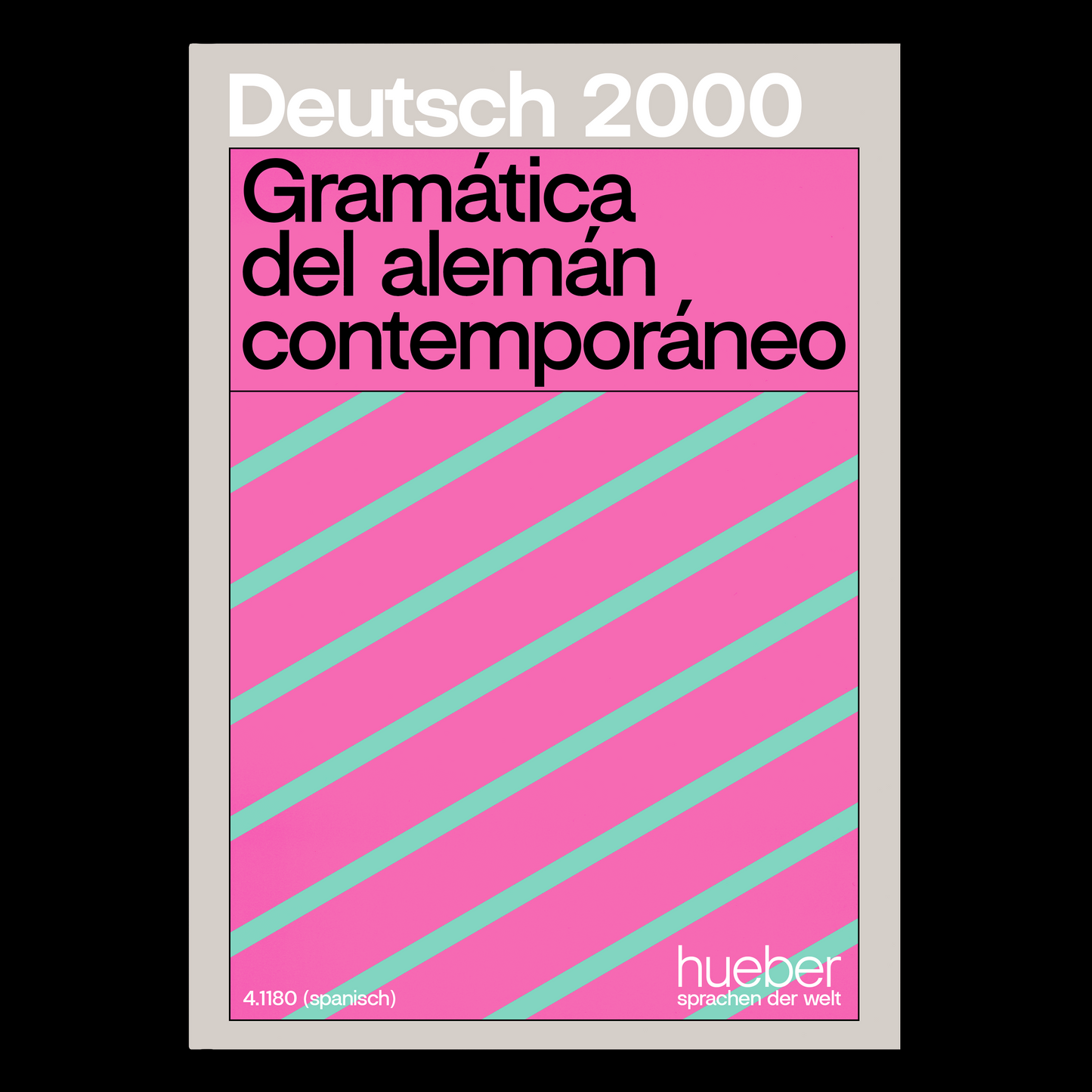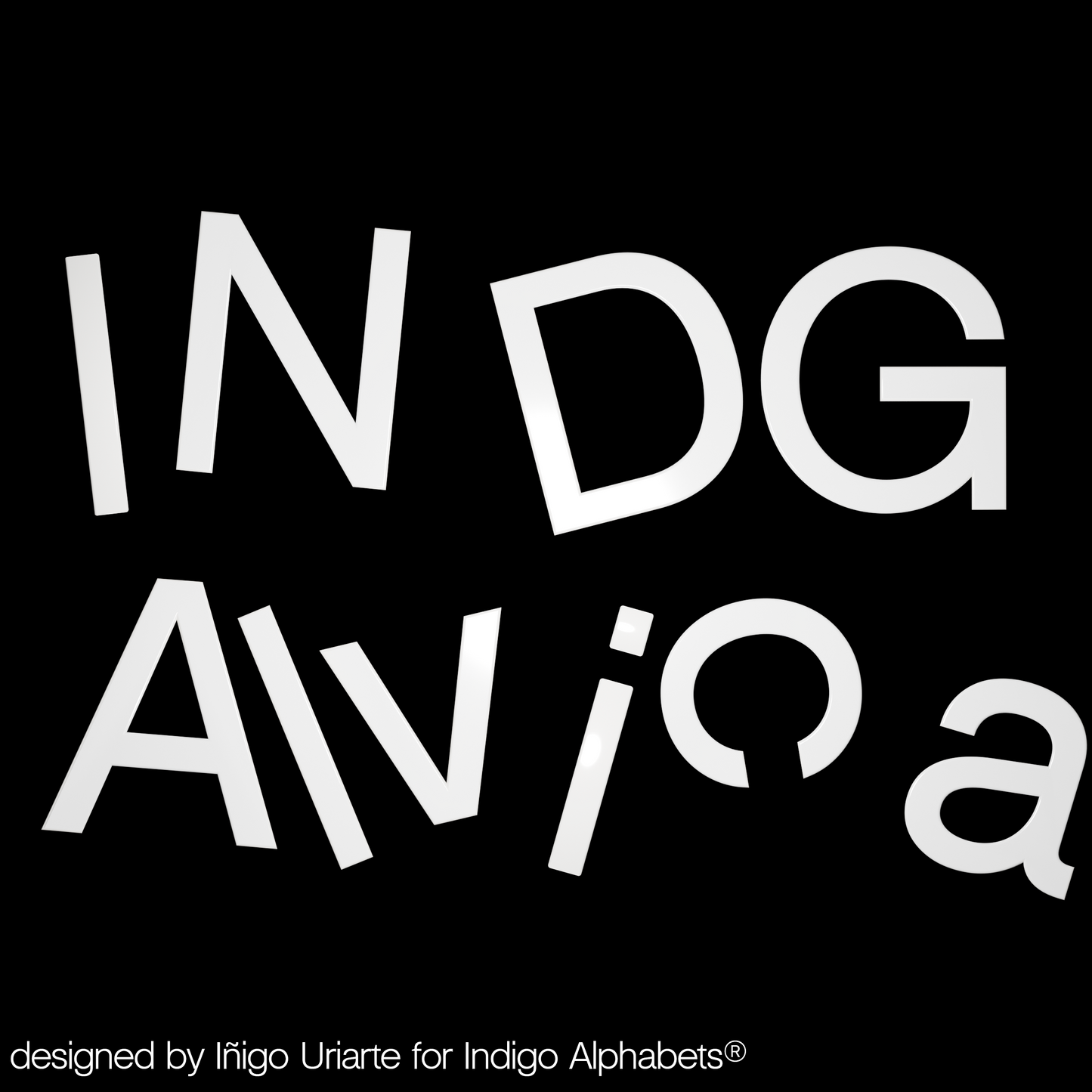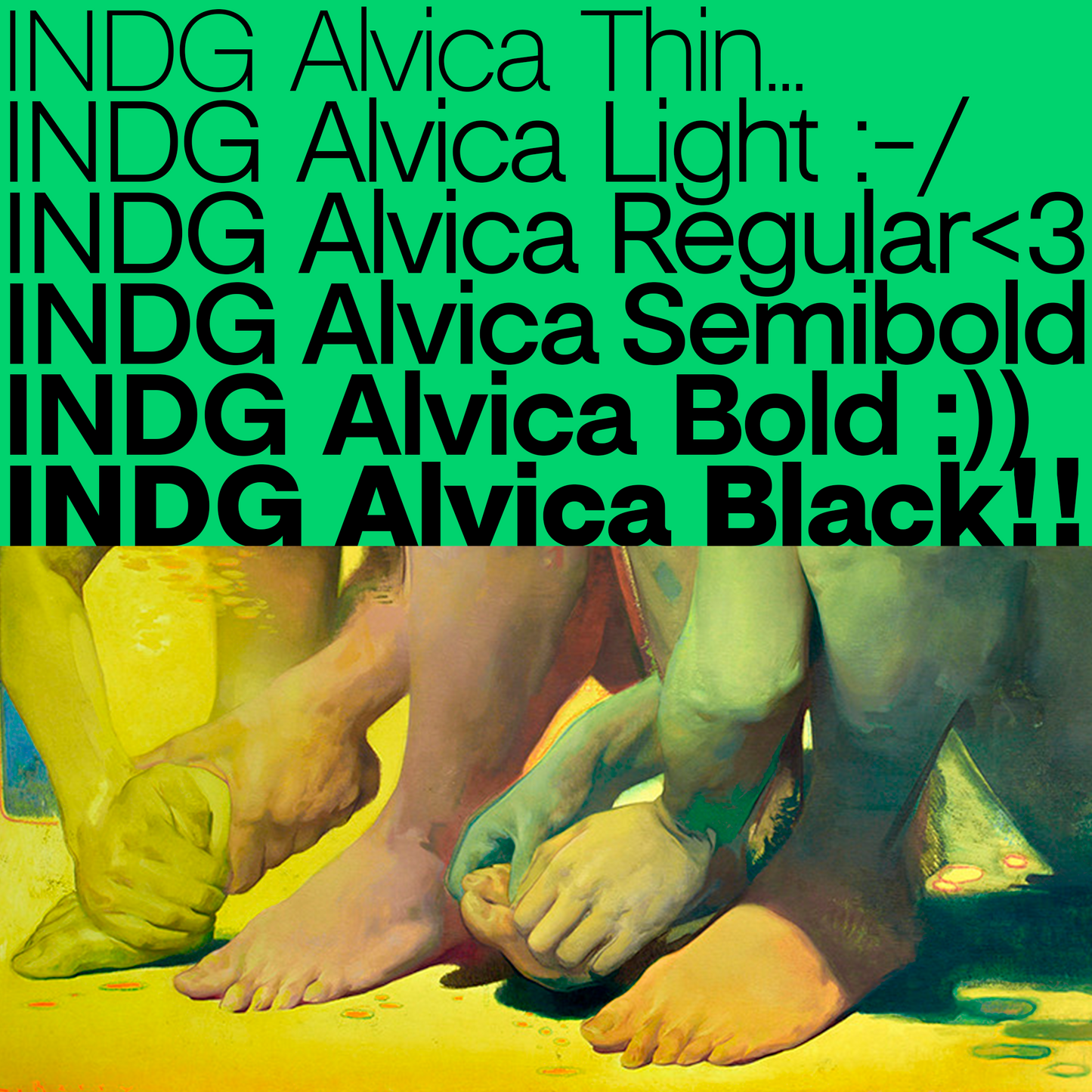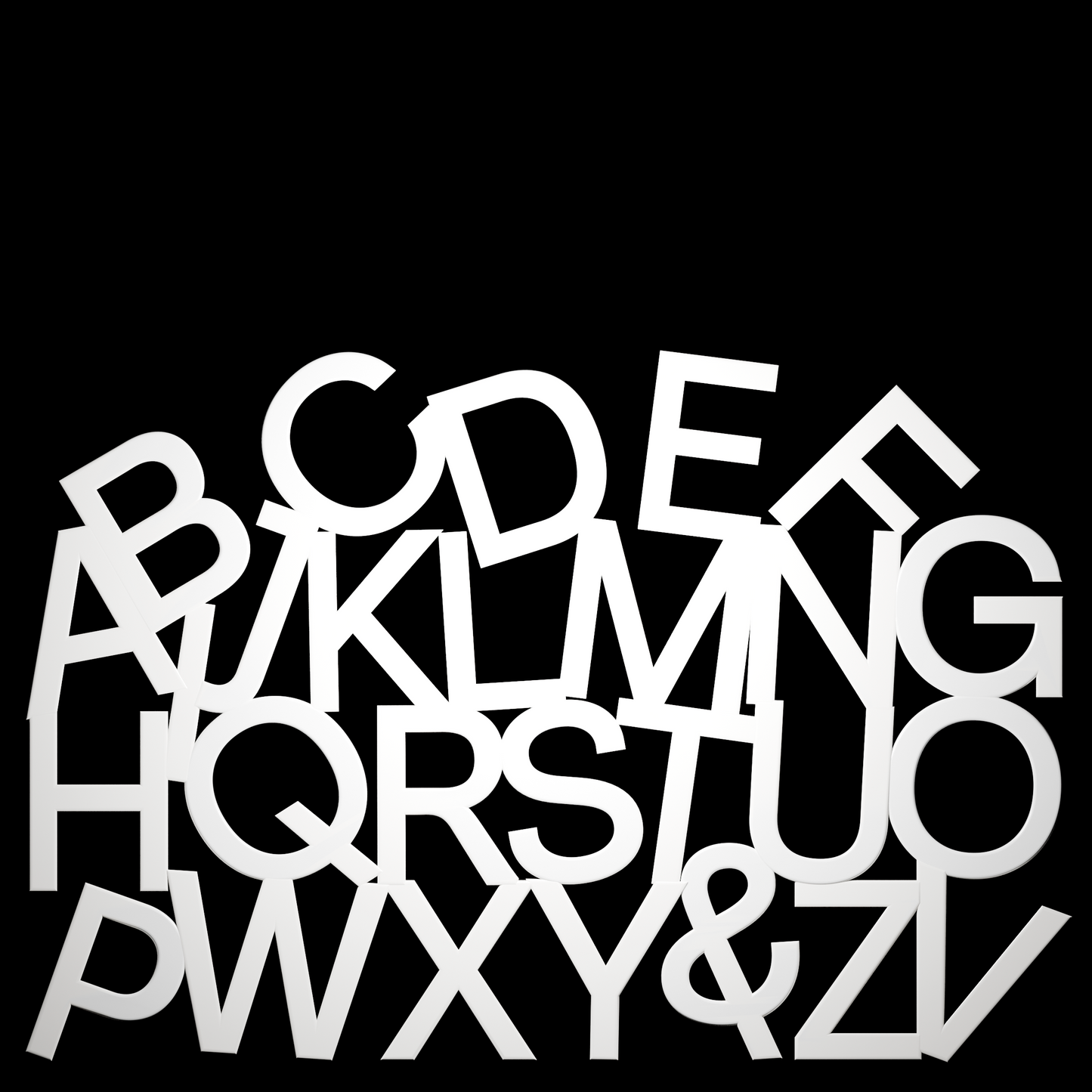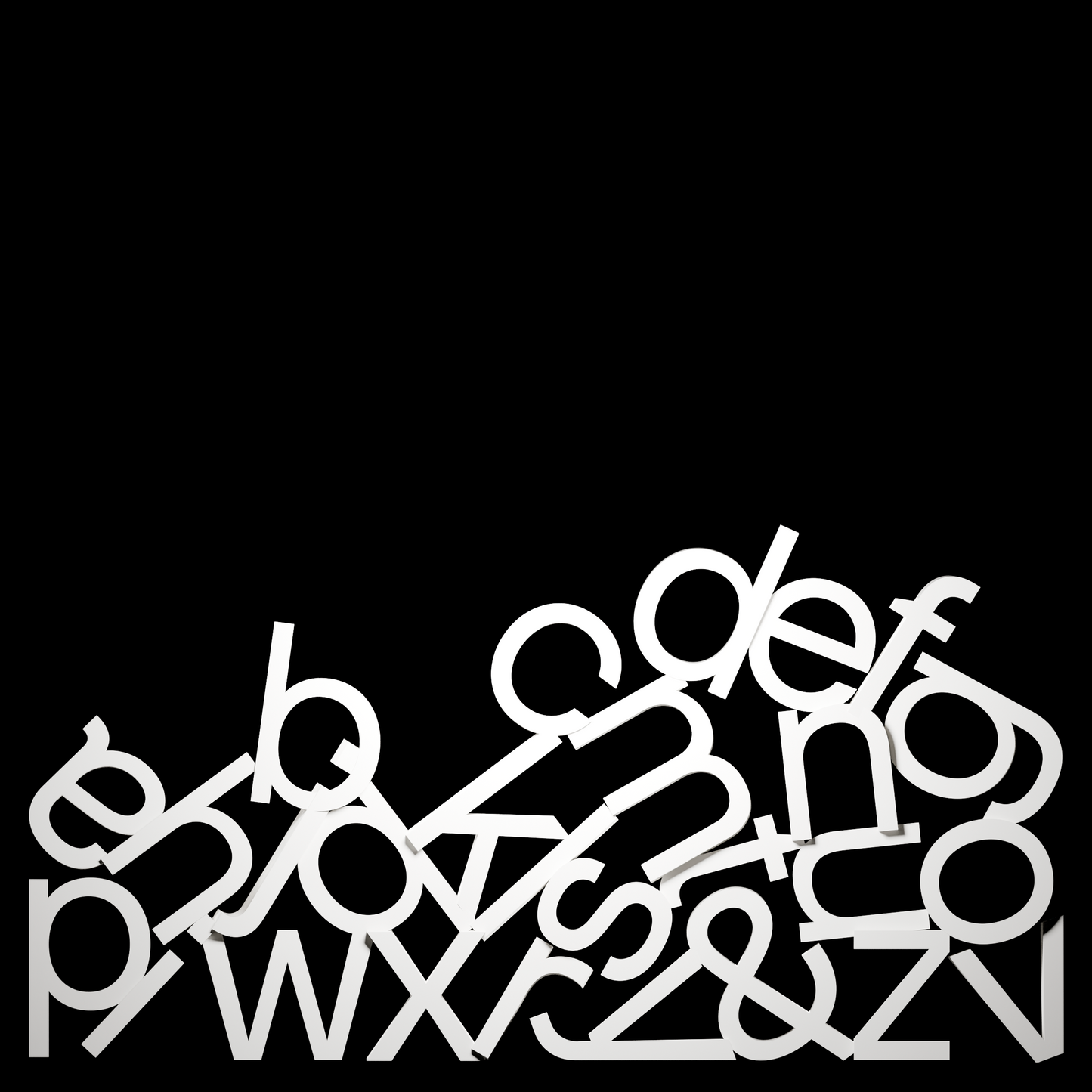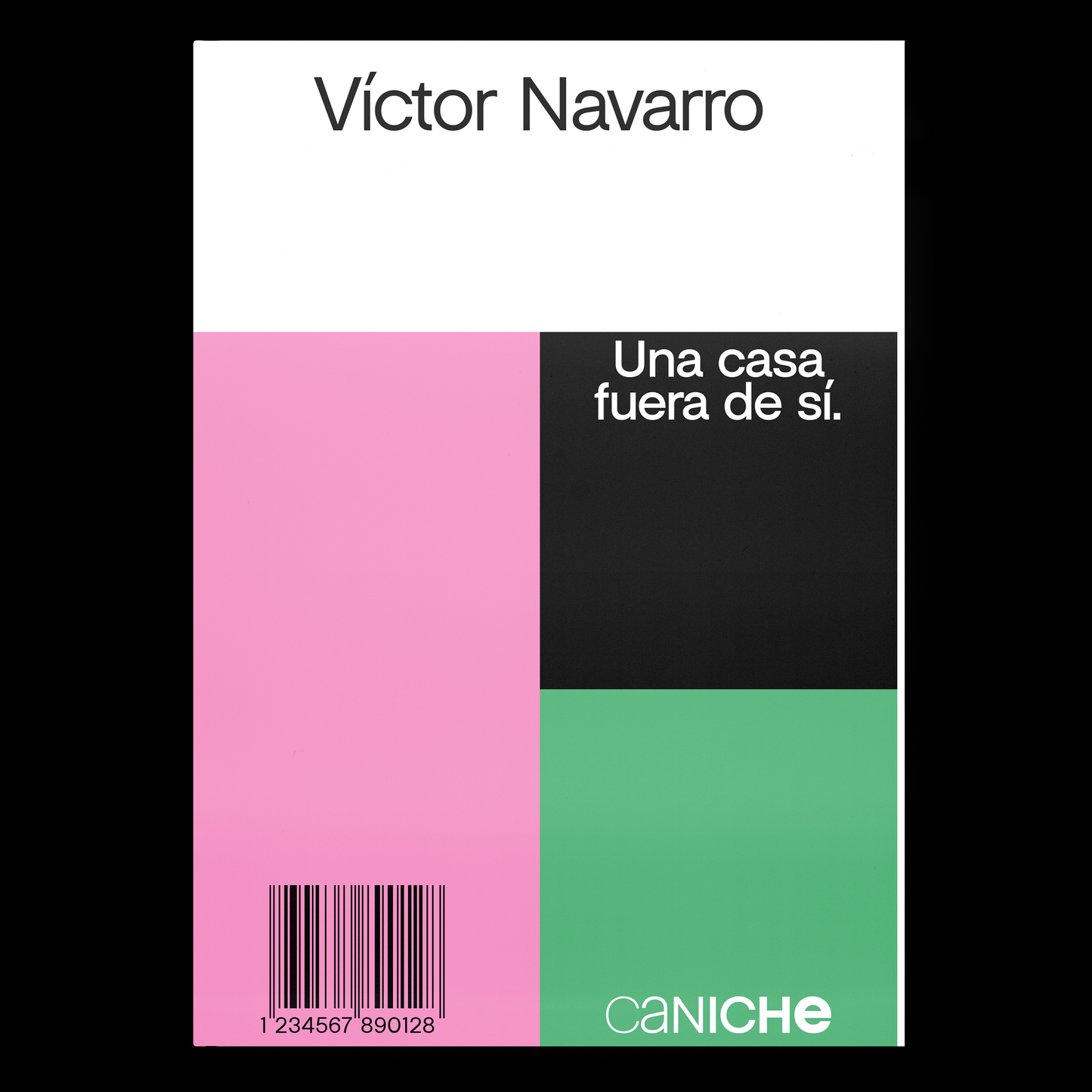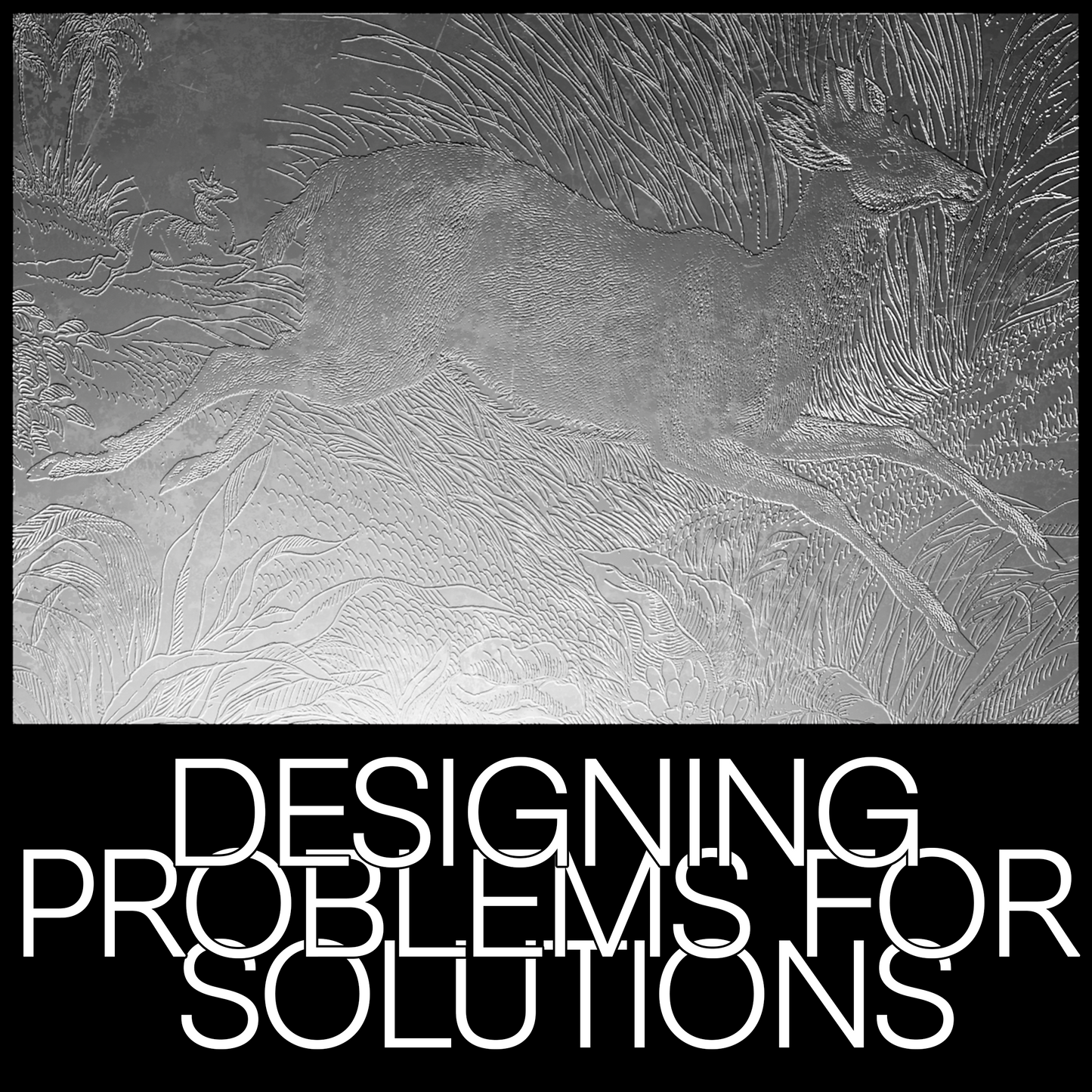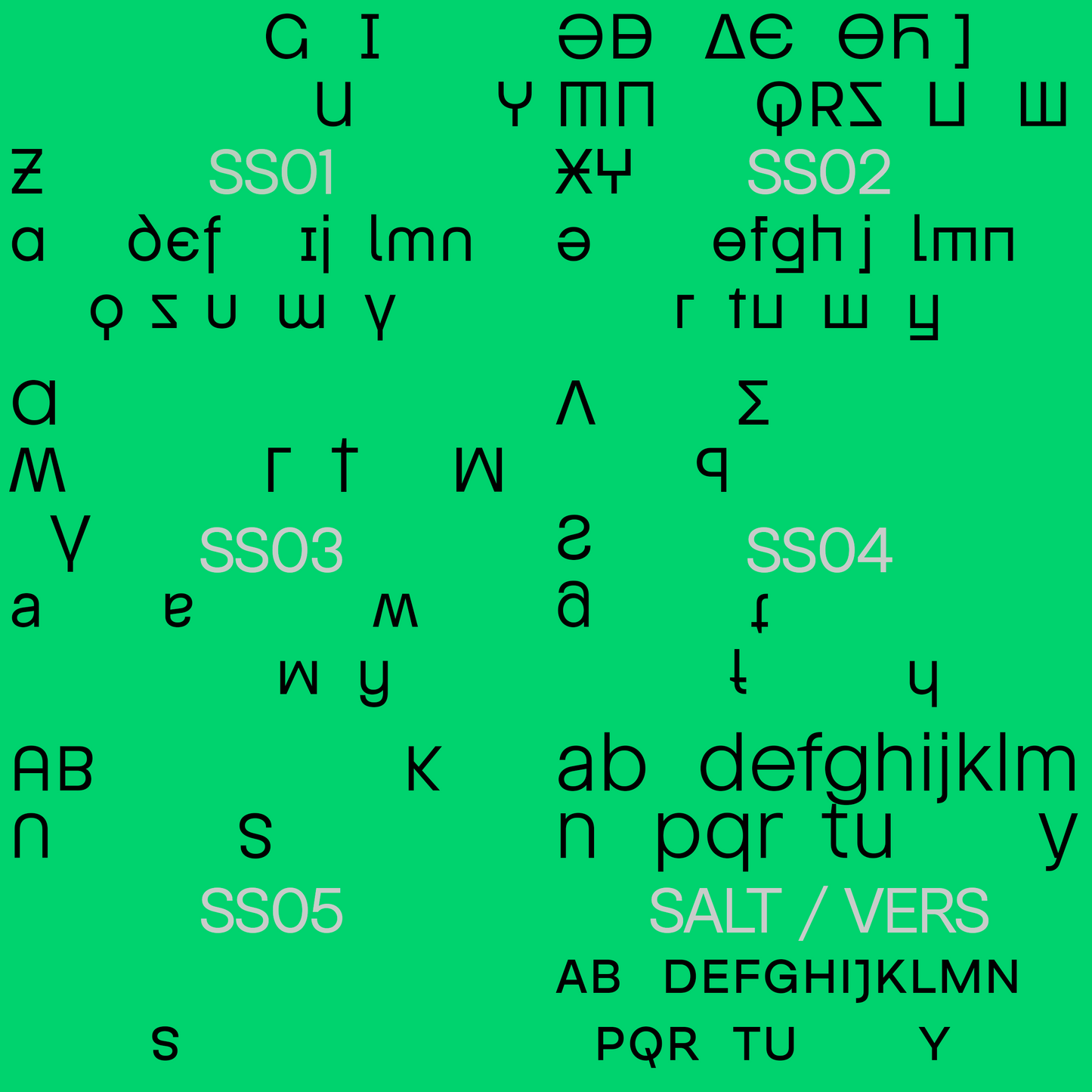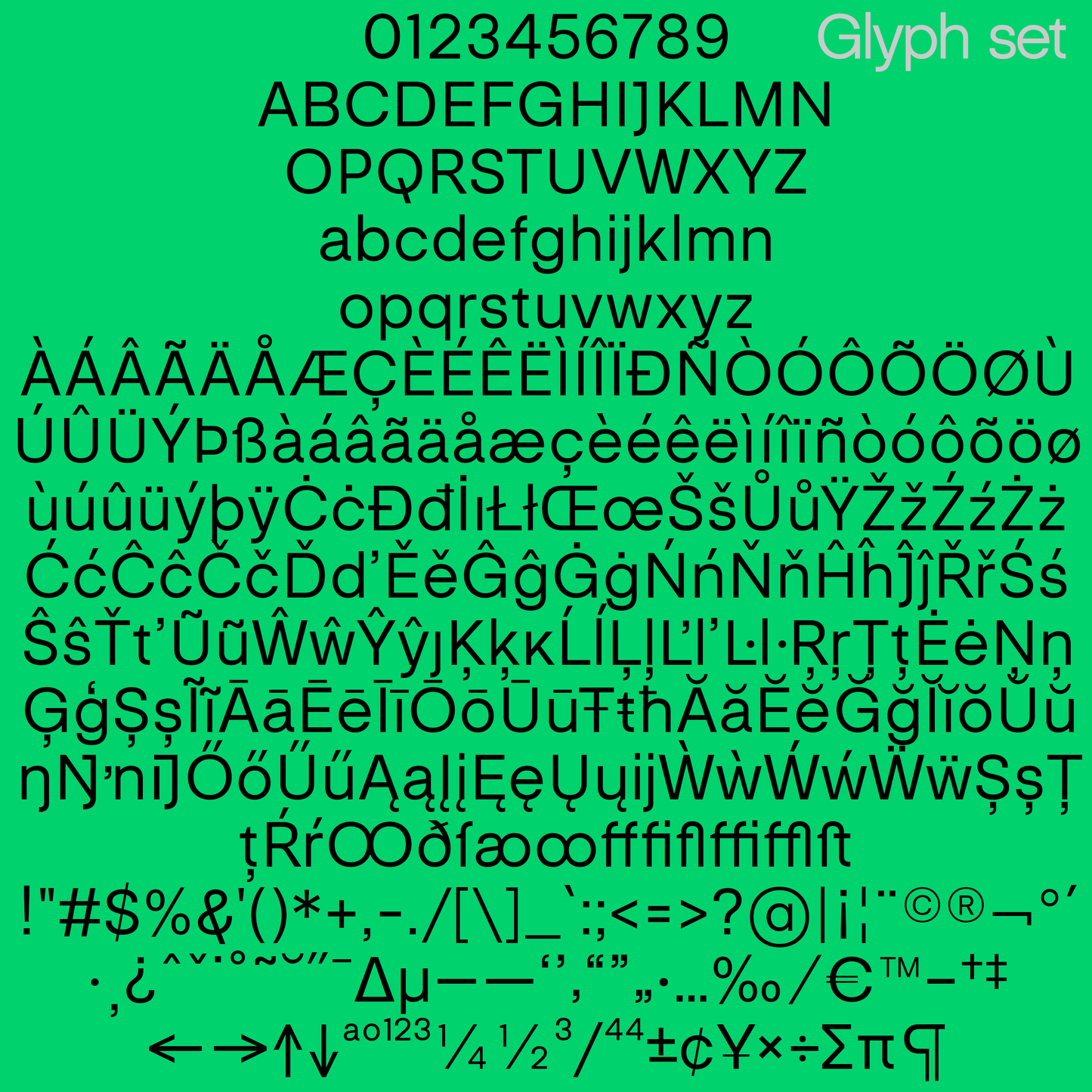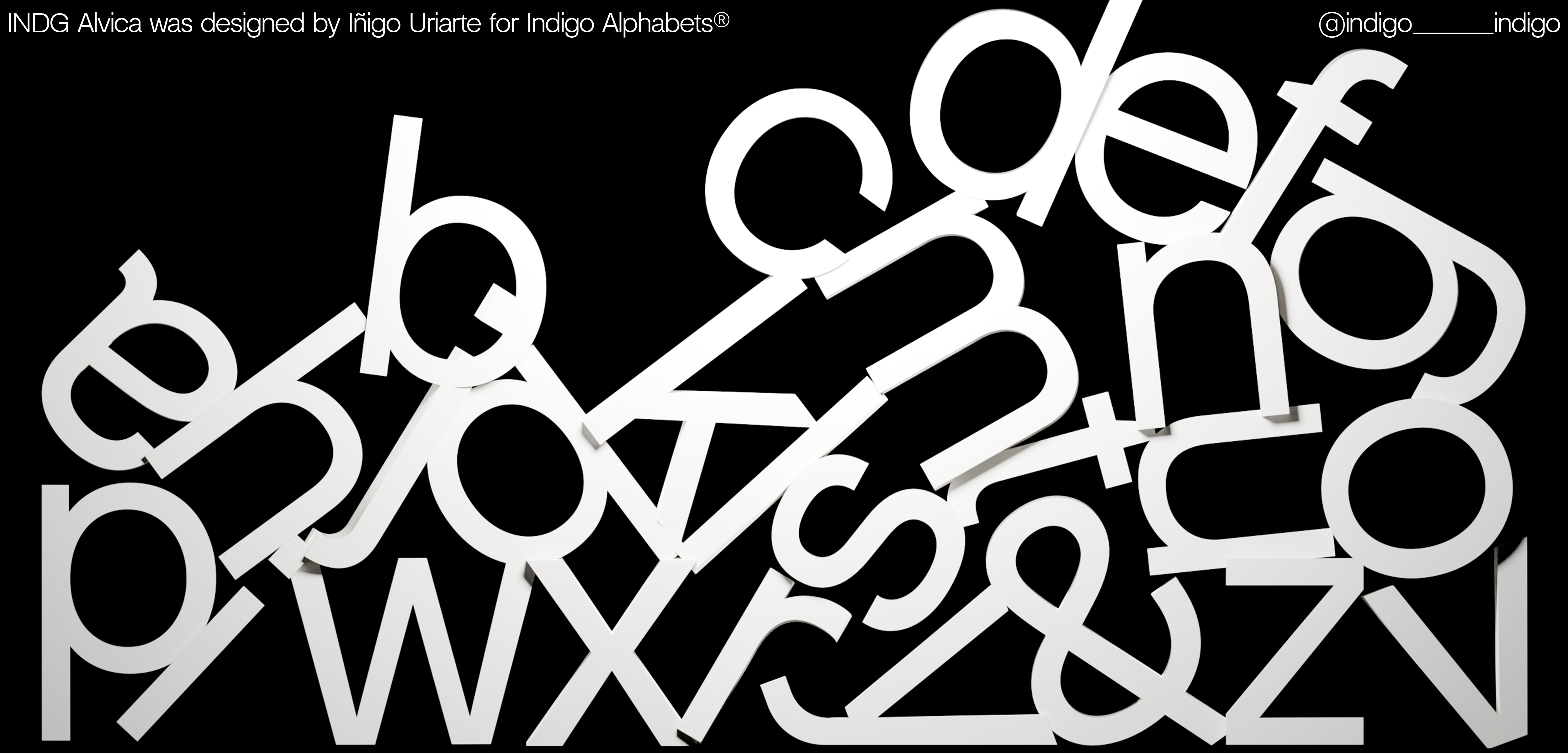
INDG Alvica
Iñigo Uriarte
Swiss-knife (you get it?), everyday use, highly versatile, all-in-one typographic family. INDG Alvica counters its sober appearance with a broad set of quirky alternates.
- Total glyph set per weight: 624
- Basic Latin
- 100% Latin Extended-A
- Diacritics
- Punctuation & Symbols
- Ligatures
- Stylistic Alternates
- Versalites
- Big Lowercase Alternates